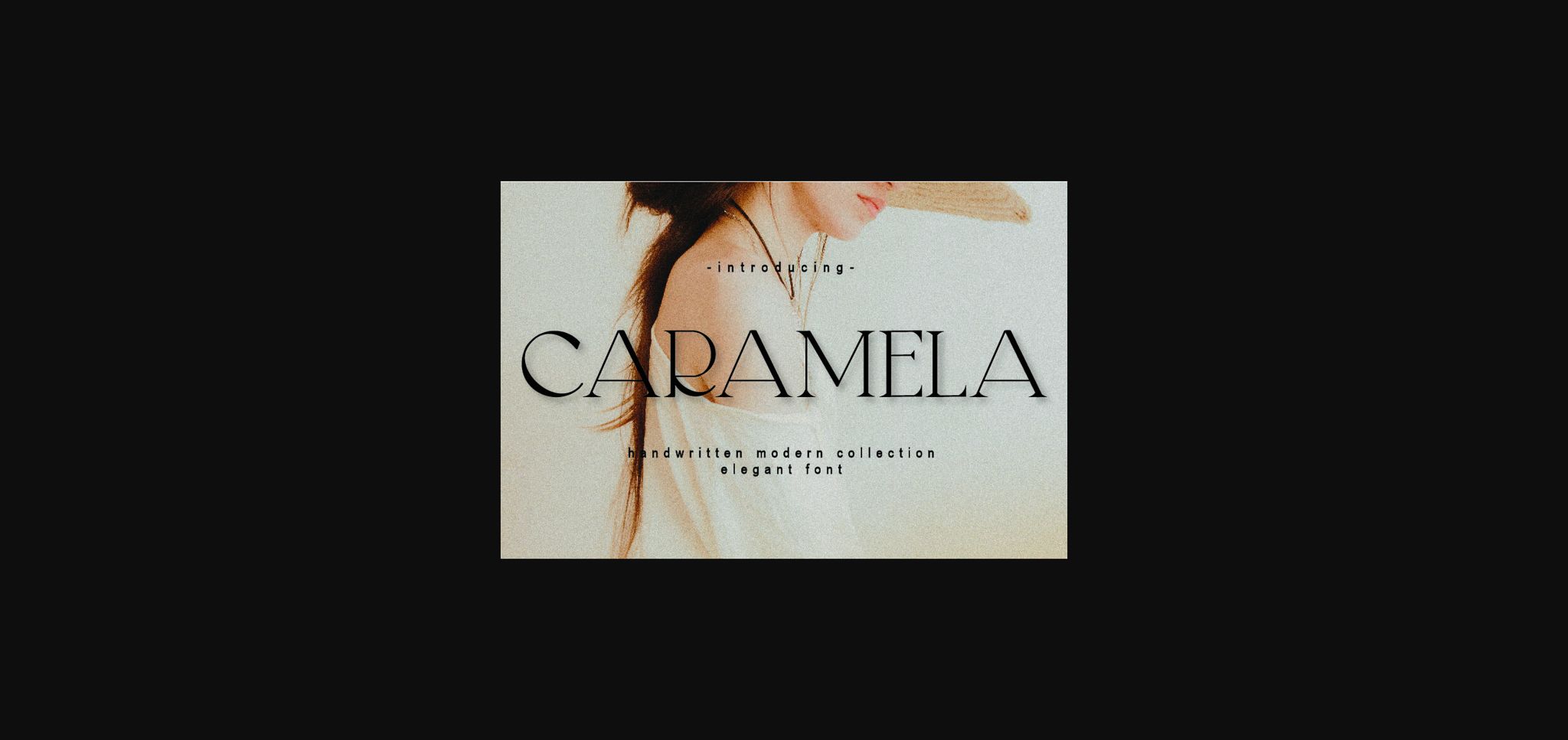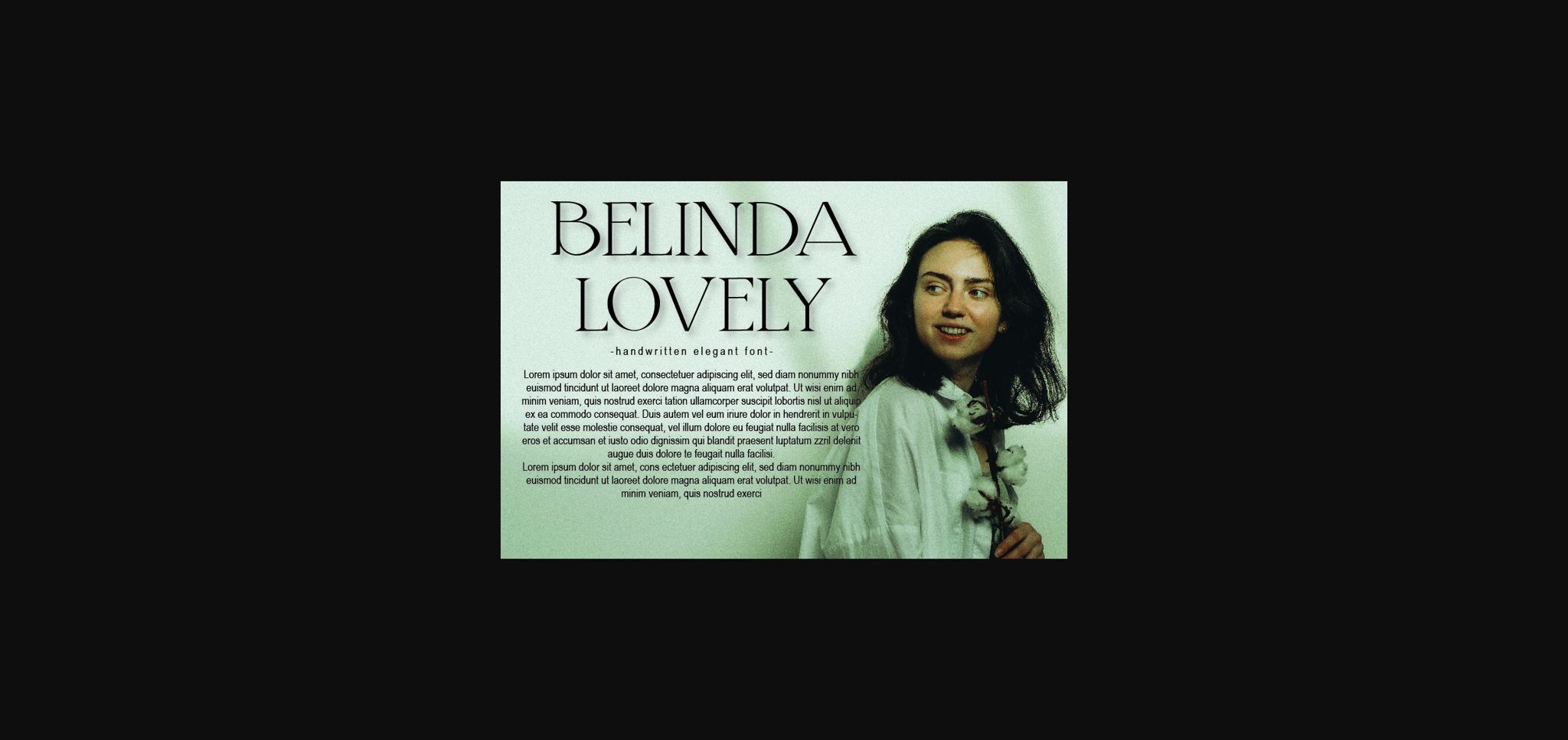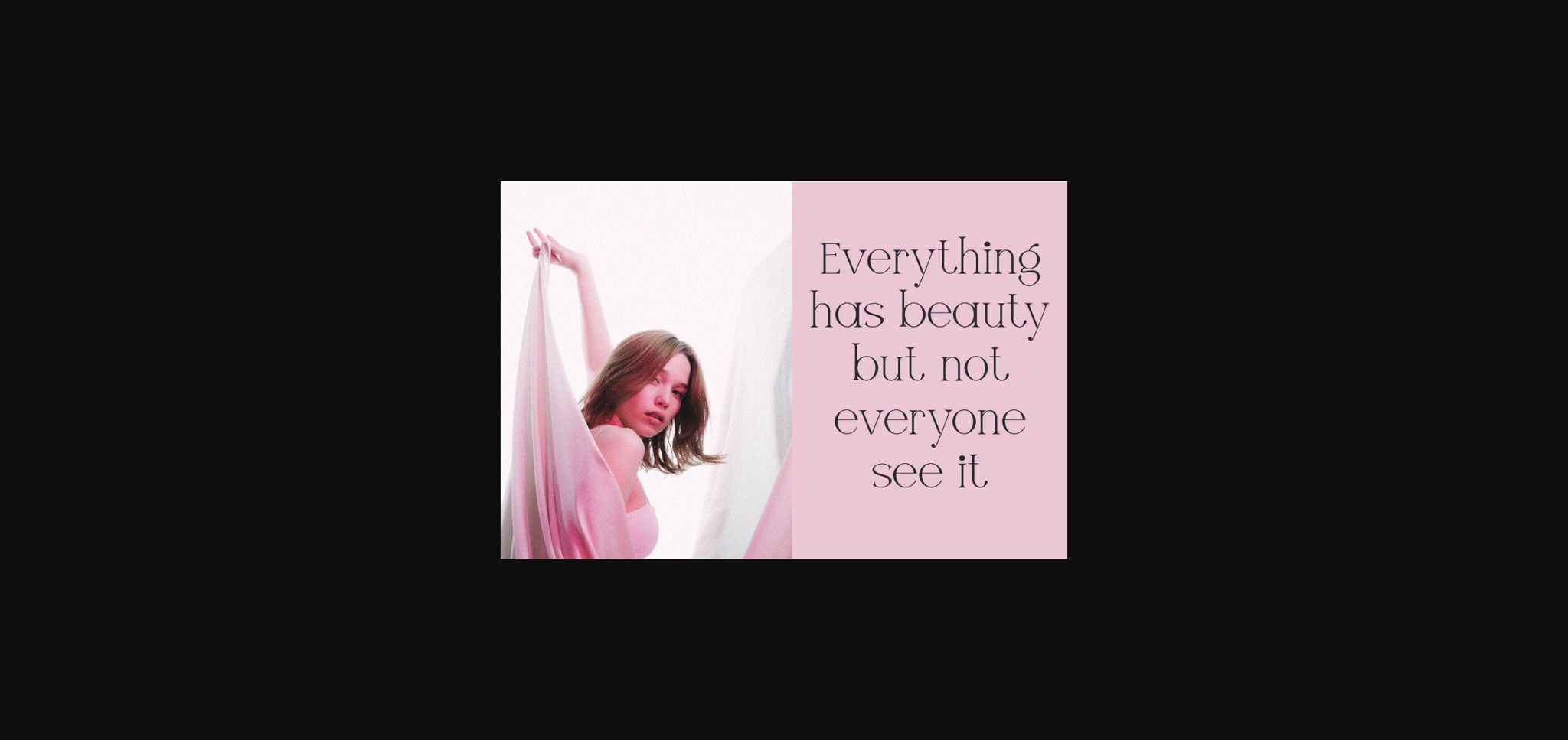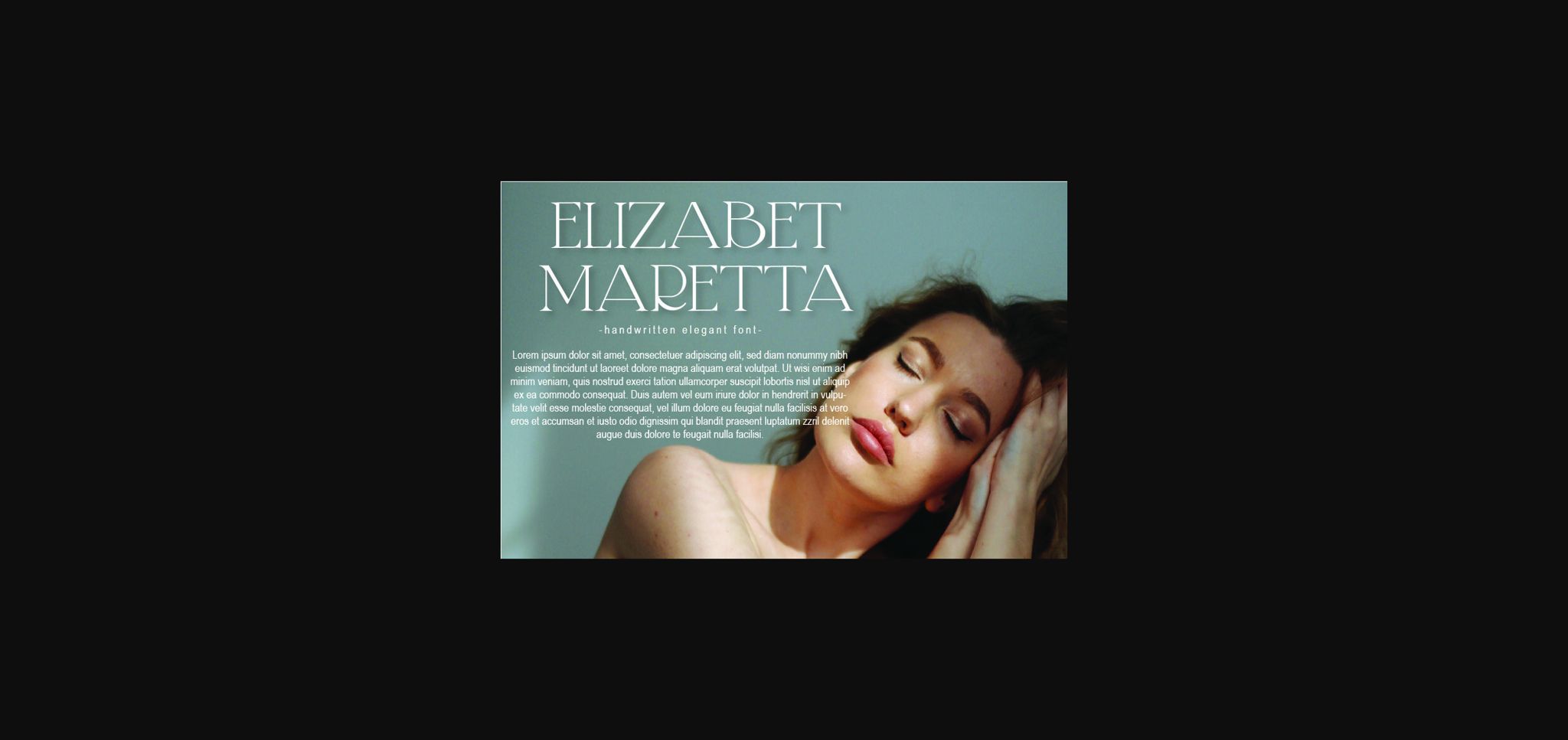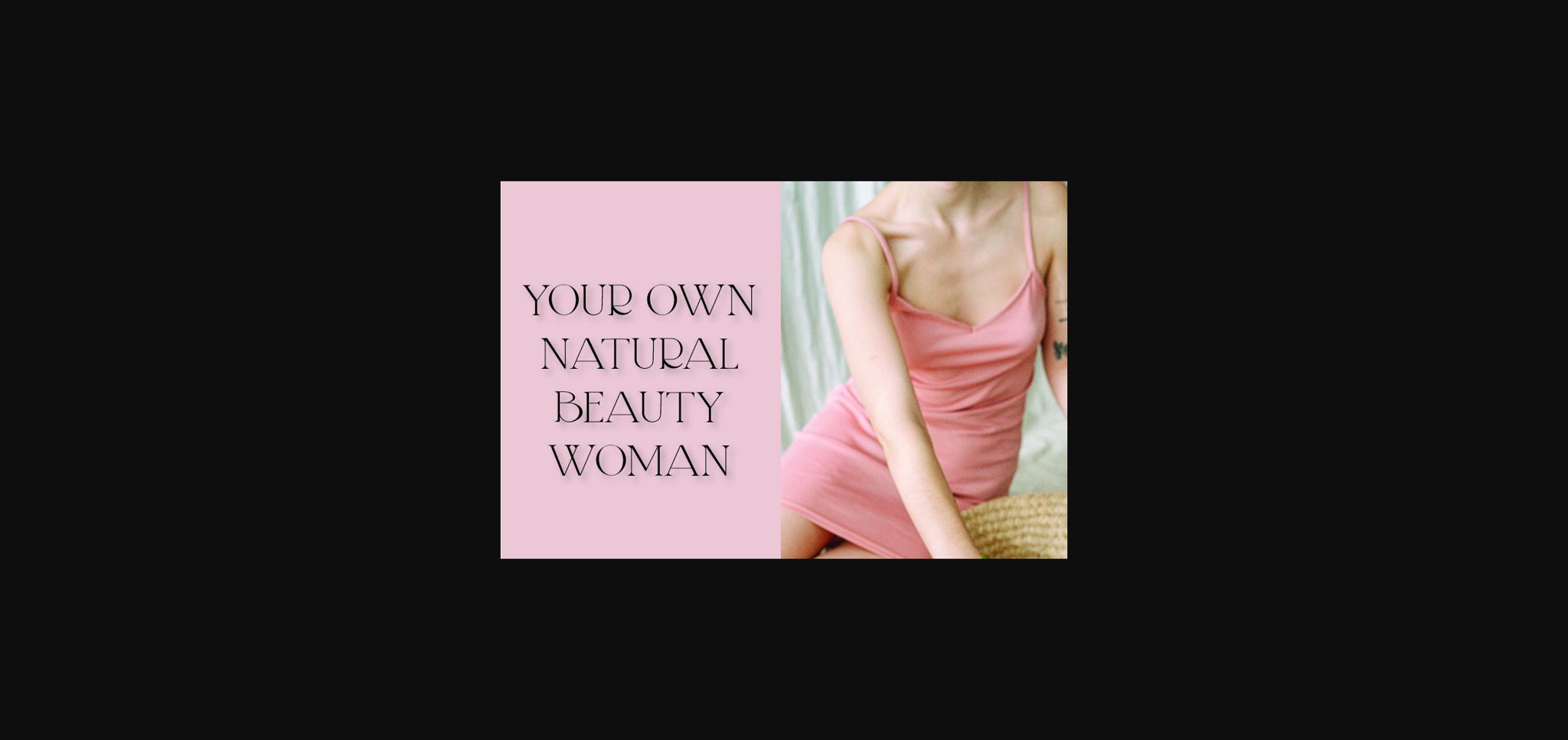
HomeSans Serif FontsCaramela Font Sans Serif Fonts Caramela Font FacebookTwitterPinterestWhatsApp 1 of 7 ... Caramela Font Poster 2... Caramela Font Poster 3... Caramela Font Poster 4... Caramela Font Poster 5... Caramela Font Poster 6... Caramela Font Poster 7... About Caramela Font Caramela is an elegant thin line font that looks modern, futuristic and looks luxurious. Add this font to your creative ideas, and see how it stands out and looks perfect for your projects!Use this font to see its beauty! DOWNLOAD NOW 104 0 People also explored Ghost Monster Font Austhine Font Cleopatra Font Little Thomas Font Watermelon Font Jamesttedy Signature Font Rusty Original Font The Holiday Font Happy Lucky Day Font Marellia Font Notice Font Thin in Bold Font TagsCaramela Font Previous articleDance Blues FontNext articleValentine Midnight Font LEAVE A REPLY Cancel reply Comment: Please enter your comment! Name:* Please enter your name here Email:* You have entered an incorrect email address! Please enter your email address here Website: Save my name, email, and website in this browser for the next time I comment. Unlock Endless Creativity with the FREE September Clipart Huge Bundle (Valued at $700!) Personal Use Free Calling Personal Use Free Read more Rina Personal Use Free Read more Bonhomie Personal Use Free Read more Dealisya Personal Use Free Read more BLOG Free Fonts Risk: Why Free Fonts Can Be Dangerous for Designers Free Fonts Risk: Why Free Fonts Can Be Dangerous for Designers Using free fonts is a common practice in web and graphic design. However, the... The 10 Best Handwriting Fonts to Add Personality to Your Designs Transform Your Website: Elevate Your Typography with 7 Best Web Font Generators Top 7 Google Fonts Alternatives for Faster and Privacy-Friendly Web Design (2025)